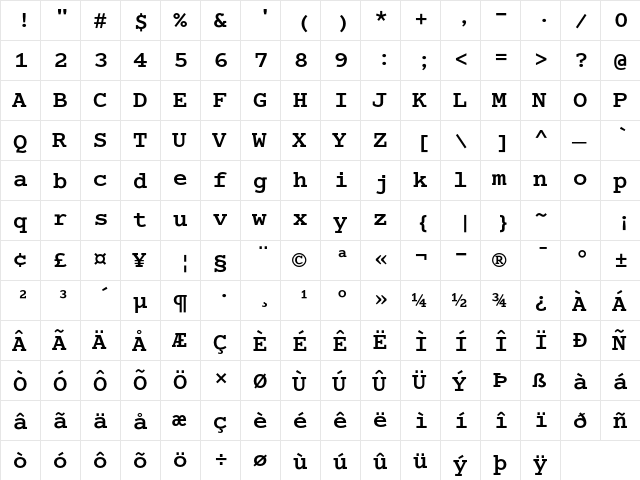
Cumberland Std Bold Font Preview
Cumberland Std Bold
Design Context for Cumberland Std Typeface
Cumberland Std offers clean, dependable letterforms without strong stylistic allegiance, making it a practical choice for designers who need flexibility. Its bold stroke weight gives it real presence on the page.
Pro Tip: Pair Cumberland Std with a font of contrasting weight or personality to build a more expressive typographic hierarchy.